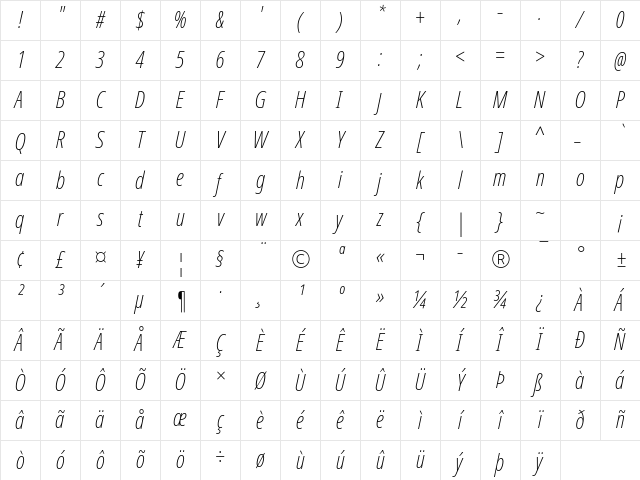
NotoSansDisplay Nerd Font Italic
Foundry: Monotype Imaging Inc.
Designer: Monotype Design Team
Design Context for NotoSansDisplay Nerd Font
NotoSansDisplay Nerd Font is built around its visual character rather than neutral utility - its distinctive forms are designed to make an impression at display sizes. The slanted form adds forward momentum and visual energy.
Font Pairing: Pair with a clean neutral sans-serif for body copy to let NotoSansDisplay Nerd Font's character lead without overwhelming the composition.
Pro Tip: Use NotoSansDisplay Nerd Font exclusively at display sizes - it was designed to be seen, not read at length. Let a neutral companion handle body copy.